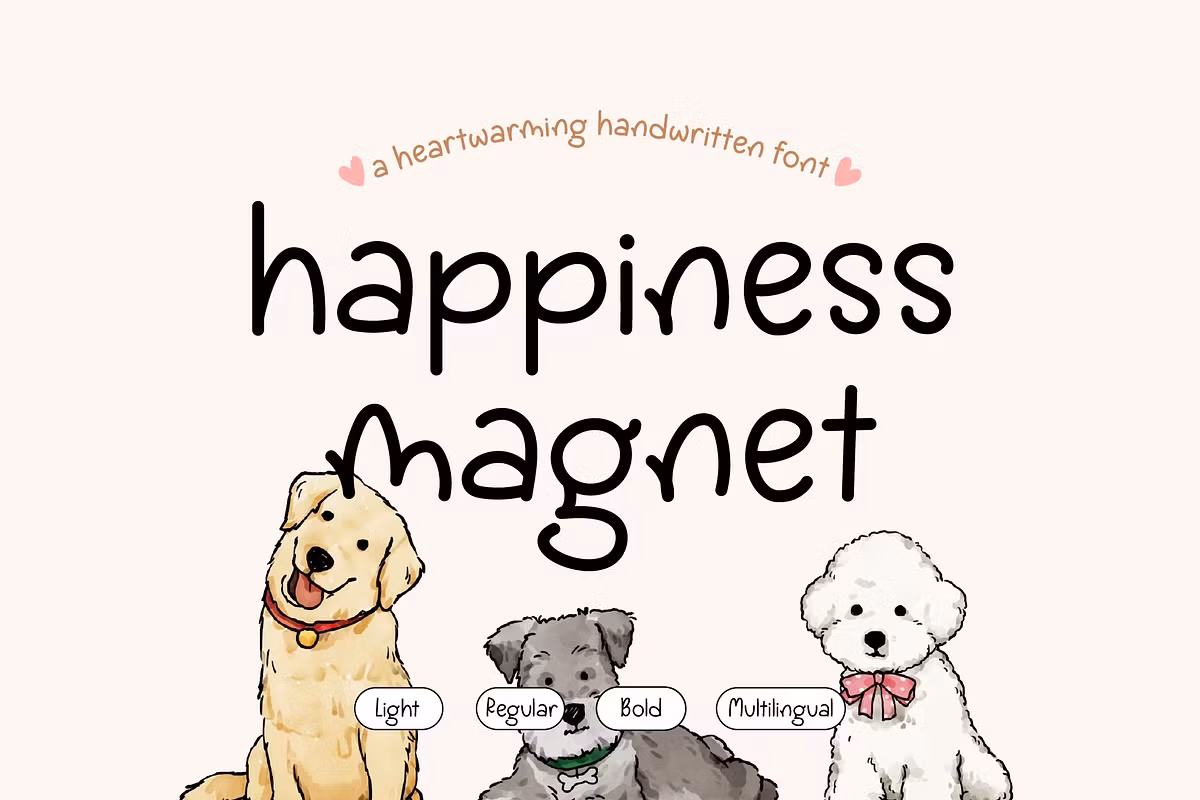
Playful, bubbly, and full of charm, Happiness Magnet - Cute Typeface Free Download is a fun and cheerful typeface designed to bring joy to your designs. Perfect for kids’ projects, logos, posters, greeting cards, social media graphics, and playful branding, this font adds an adorable and lighthearted touch to any creative project.
With its rounded shapes, smooth curves, and whimsical style, Happiness Magnet is ideal for designs that need to feel approachable, friendly, and full of personality. Whether you're working on a children's brand, festive invitation, or playful ad campaign, this font will make your typography pop.